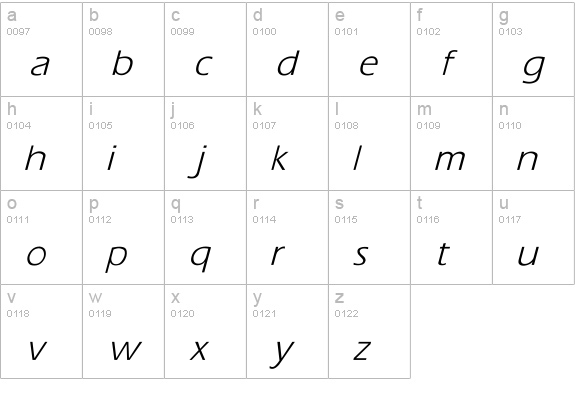
Tili Italic Font Details
Tili Italic is a distinctive, italic variant in the Tili typeface family \xE2\x80\x94 well suited to design and typography projects.
Introducing Tili Italic, a stunningly elegant font that effortlessly combines tradition with a contemporary flair. Designed with meticulous attention to detail, this typeface exudes a sense of sophistication and sophistication, making it perfect for a wide range of projects. With its graceful curves and slanted letterforms, Tili Italic adds a touch of elegance and refinement to any design. Whether you're creating a wedding invitation, a logo for a high-end brand, or simply looking to elevate your typography game, this font is sure to impress. What sets Tili Italic apart is not only its impeccable design but also its accessibility. This font is available for free download at FontsMarket.com, allowing designers, professionals, and enthusiasts alike to experience its beauty without any restrictions. Yes, you read that right—Tili Italic is freely available, giving you the freedom to bring your creative visions to life without breaking the bank. So why wait? Enhance your designs with Tili Italic and let its refined charm captivate your audience. Whether it's for print or digital media, this font will leave a lasting impression and elevate your work to new heights. Download it now from FontsMarket.com and unlock the potential of Tili Italic for your next project.